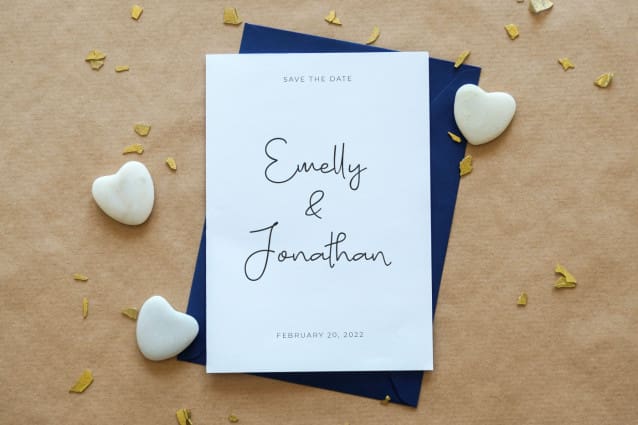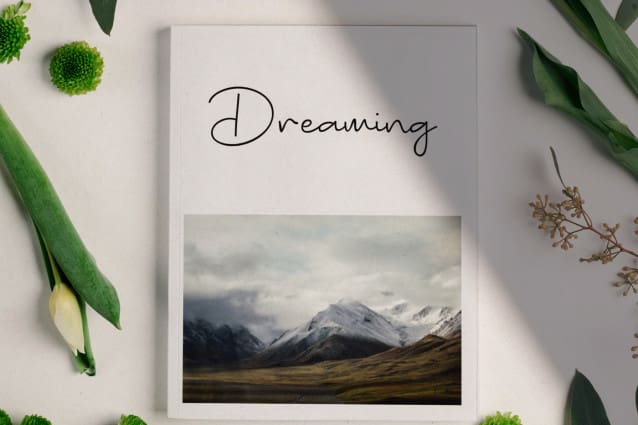
Bugisnia Signature Font
Bugisnia Signature Font is a handwritten script/signature font with natural look and feel. This font is perfect for logo, and the other various forms such as invitations, labels, magazines, books, greeting cards, packaging, fashion, make up, stationery, novels, labels or any type of advertising purpose, photography, and more.
Designer Name: salamahtype